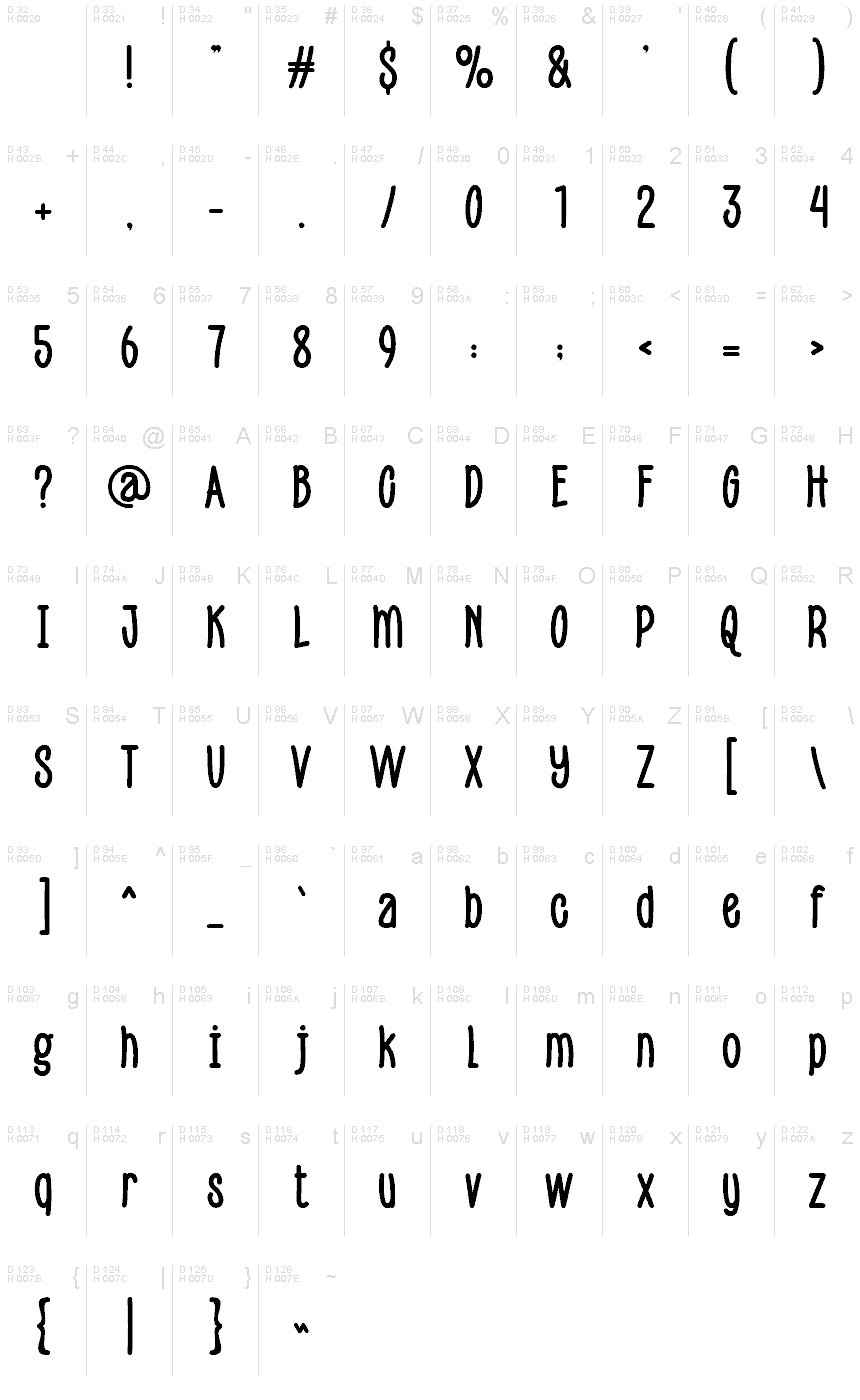
LINEMAS
Linemas font by Gilang Ternadho is a free handwritten font with a condensed width. It features a rounded, casual, and expressive design that reflects a slightly rustic style. The handcrafted feel adds an artistic touch to this modern display instrument ideal for approaching relaxed projects.